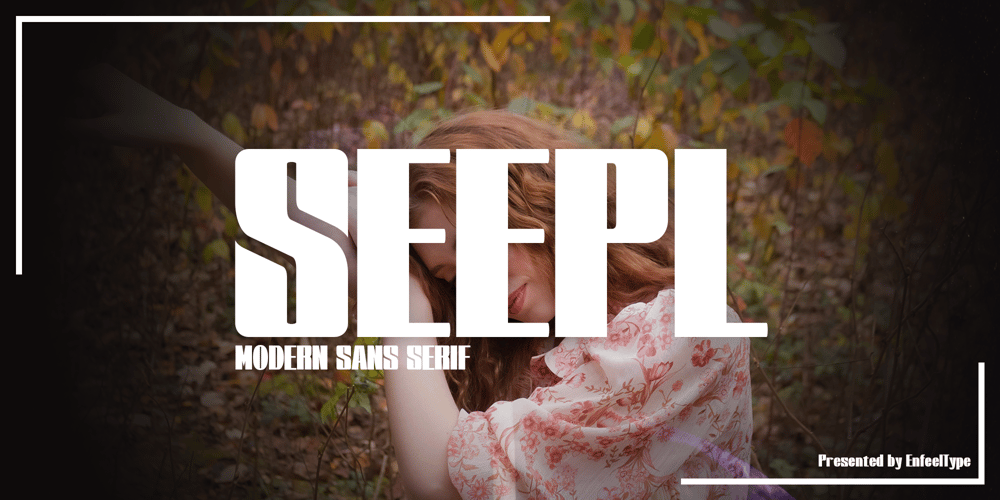
Seepl
Seepl font
Seepl Font Family was designed by Muhammad Naufal and published by Enfeeltype. Seepl contains 3 styles and family package options. Seelp is a modern, versatile font designed to bring sophistication and clarity to your projects. Its clean lines and smooth curves strike a balance between elegance and readability, making it perfect for both print and digital applications. Seelp’s distinctive character shapes lend a contemporary yet timeless feel, ideal for branding, editorial design, logos, posters, and web design.With multiple weights and extensive language support, Seelp offers flexibility for a wide range of creative uses. Its sleek and refined aesthetic ensures that your message is communicated with style and precision. Whether you’re creating minimalist layouts or bold graphic statements, Seelp is the go-to font for professional and high-quality design